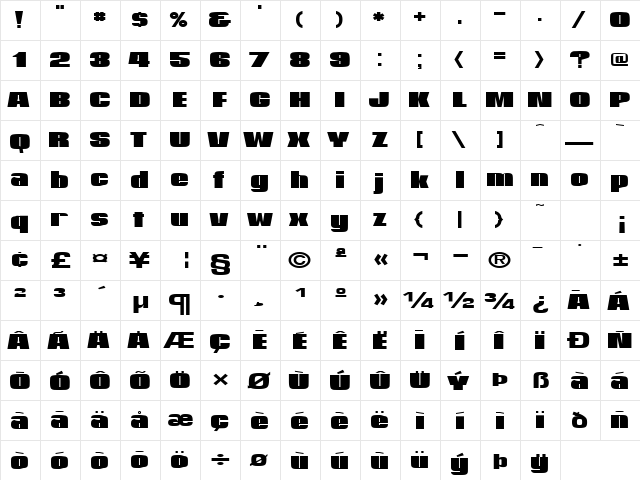
GraphicShoesText113 Regular
Design Context for GraphicShoesText113 Typeface
GraphicShoesText113 takes a measured approach to typography — its balanced proportions and neutral character make it a reliable workhorse for both digital and print work.